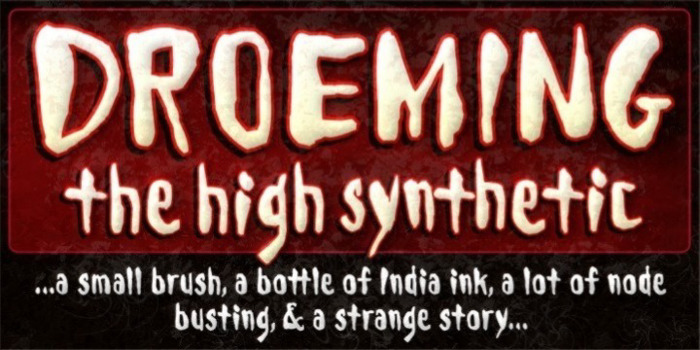
Droeming Font
It's the font that inspired a story. Or is it the story that inspired a font? Droeming is a simple experiment in scrawl font technique. Drawn by hand with a very small brush and a few drams of India ink, the scanned and vectored results deliver intriguing thicks and thins with curious blobbings that create interest and variation. After some heavy kerning of 7,000 plus pairs--and some heavy writing of 26,000 or so words--the font and the story it inspired are finally done. But didn't I just hint that it's not clear which inspired which? Check out the droeming specimen in my gallery and see if you can guess the answer. And then ask yourself, can you survive the droem? It would be a syn if you couldn't.